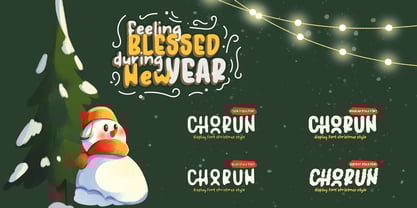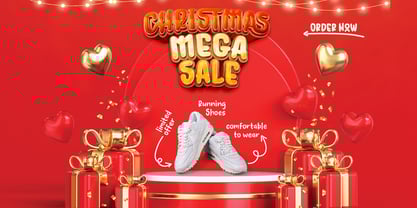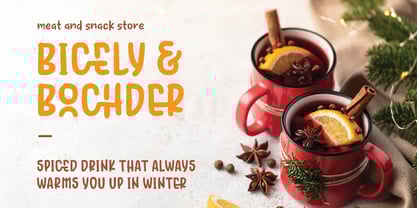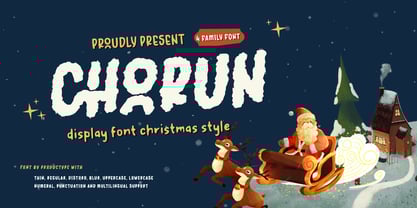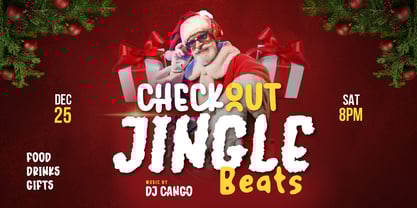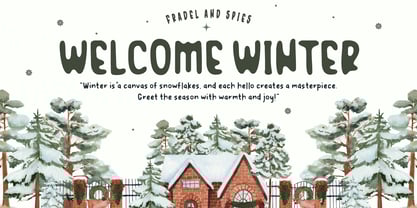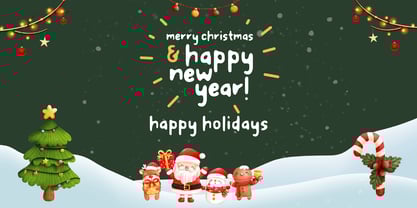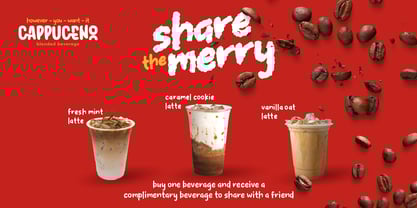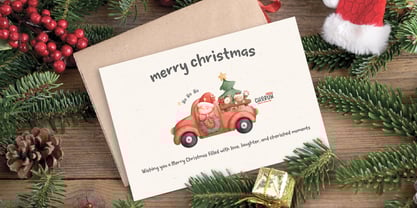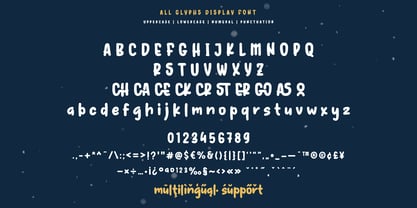
Chorun
Introducing Chorun, the joyful Christmas display font that embodies the warmth and sparkle of the holiday season. With its charming, handcrafted style, Chorun is perfect for bringing a cozy, festive touch to your designs and making every project feel like a winter wonderland.
Ideal Uses:
✓ Christmas greeting cards
✓ Winter festival posters
✓ Holiday party invitations
✓ Seasonal merchandise designs
✓ Festive event logos
Chorun adds a dash of Christmas spirit to any project, helping designers convey warmth, joy, and holiday cheer. With its lively, decorative look, Chorun is a fantastic choice for anyone looking to make their holiday projects truly memorable.